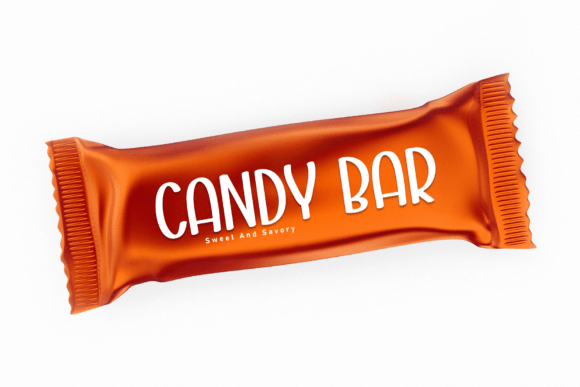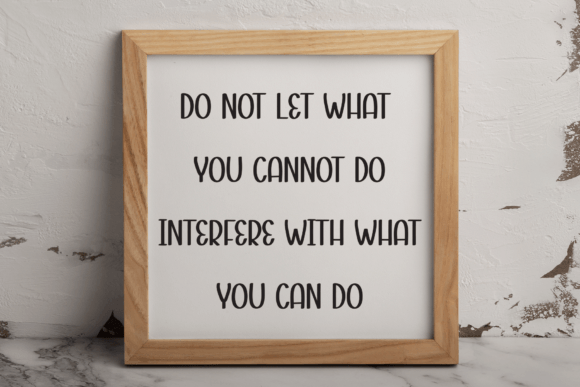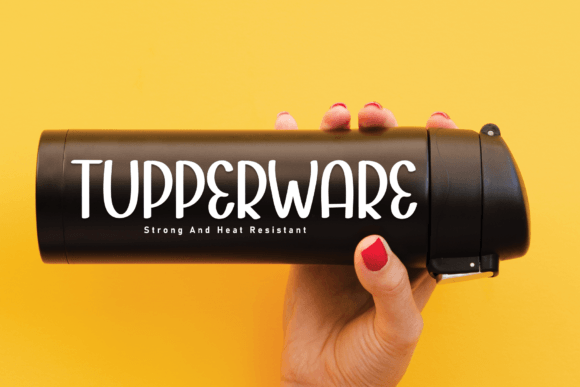
Introduction to Ramen Soup Font
As designers, we’ve all been there – staring at a blank page, searching for the perfect font to bring our creative project to life. For me, it’s that moment of pure joy when I stumble upon a font that perfectly captures the essence of my design. And that’s exactly what happened when I discovered the delightful Ramen Soup Font.
This charming handwriting-inspired display font is more than just a pretty face – it’s a valuable design resource that can elevate any project from ordinary to extraordinary. With its adorable and playful character, the Ramen Soup Font is perfect for crafting wedding invitations, greeting cards, or any design project that warrants an extra touch of fun.
Whether you’re a seasoned designer or just starting out, the Ramen Soup Font is a high-quality free download that’s sure to become a staple in your design arsenal. And with its transparent background, you can easily layer it over any image or design element to create a unique and eye-catching visual effect.
Key Features of Ramen Soup Font
- High-quality design resource ideal for creative projects, including food-related graphics and illustrations.
- Features a unique, hand-drawn style with intricate details, perfect for adding a personal touch to designs.
- Transparent background, allowing for seamless integration with other design elements and backgrounds.
- High-resolution design (300 DPI), suitable for printing and use in various creative projects.
- Perfect for use in menu design, food packaging, and other culinary-related projects, as well as for adding a touch of personality to digital designs.
Honest Review: Ramen Soup Font
As a designer, I’m always on the lookout for new and exciting design resources to elevate my creative projects. Recently, I came across the Ramen Soup Font, a free download that caught my eye with its unique and quirky style. In this review, I’ll share my honest thoughts on what works well and what could be improved.
What works well: ✨ The Ramen Soup Font has a high quality, detailed design that’s perfect for adding a touch of personality to your designs. The transparent background makes it easy to use as a overlay or element in your creative project. I love the playful, handwritten feel of the font, which adds a fun and approachable vibe to any design.
What could be improved: ⚠️ While the font is free to download, the limited character set and lack of support for certain languages might be a limitation for some designers. Additionally, the font’s uniqueness can also be a double-edged sword – while it’s great for adding personality, it may not be suitable for more formal or professional projects.
Overall impression: I really enjoy the Ramen Soup Font, and I think it’s a great addition to any designer’s toolkit. While it may not be perfect for every project, it’s a fantastic resource for adding a touch of whimsy and personality to your designs. Just be aware of the limitations and use it judiciously!
Key features:
- High quality, detailed design
- Playful, handwritten feel
- May not be suitable for formal or professional projects
- Limited character set
How to Use Ramen Soup Font
The Ramen Soup Font is a free download design resource that offers a high-quality, unique typography style. This font is ideal for creative projects that require a bold and eye-catching look. It’s available with a transparent background, making it easy to incorporate into various design elements.
The Ramen Soup Font is ideal for creative projects such as:
- Restaurant menus and signage
- Food packaging and branding
- Blog posts and social media graphics
- Advertising and marketing materials
Tips for Getting the Most Out of Ramen Soup Font
We hope you’ve enjoyed learning about the benefits of the Ramen Soup Font as much as we have. Its versatility, combined with its high-quality design, makes it an essential addition to any design collection. So why not download the Ramen Soup Font today and see how it can elevate your creative projects? With its free download and transparent background, there’s no risk in giving it a try. We’re confident that you’ll love the results, and we can’t wait to see what you create with this amazing font!